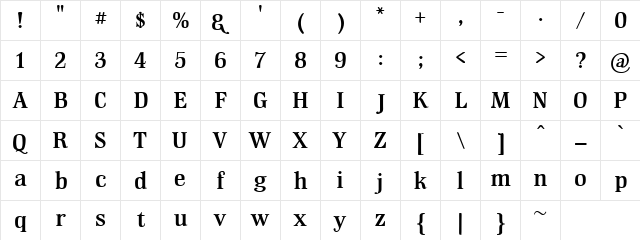
GM Hightop Regular
| Foundry | Graham Meade |
Design Context for GM Hightop Typeface
GM Hightop is a composed and adaptable typeface that performs quietly and consistently across a wide range of design contexts.